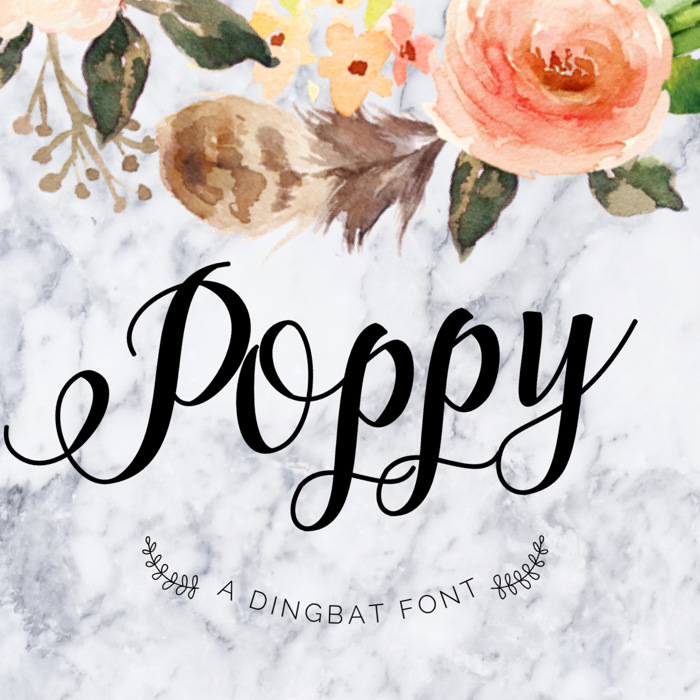
Poppy Font
Poppy is a fun dingbat font consisting of 52 hand drawn glyphs!
It includes flourishes, words, wreaths, accents, and shapes to enhance the look of any project!